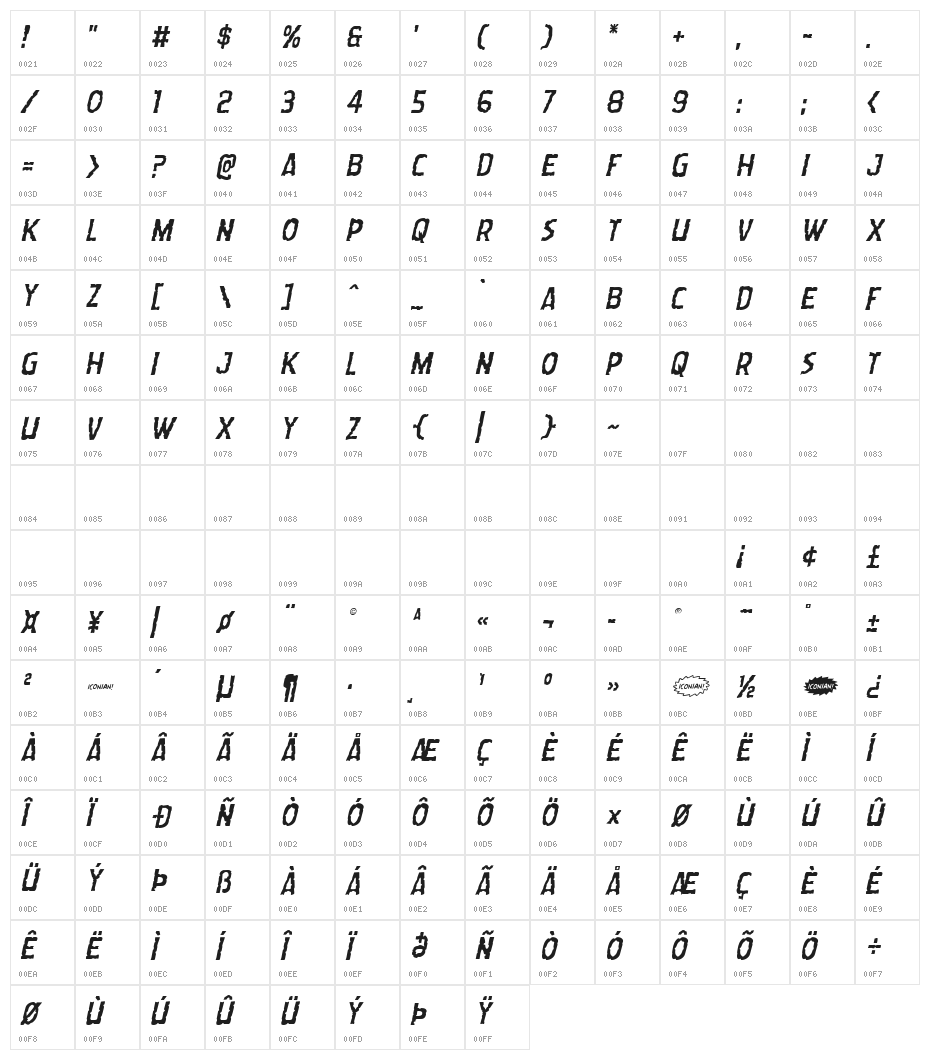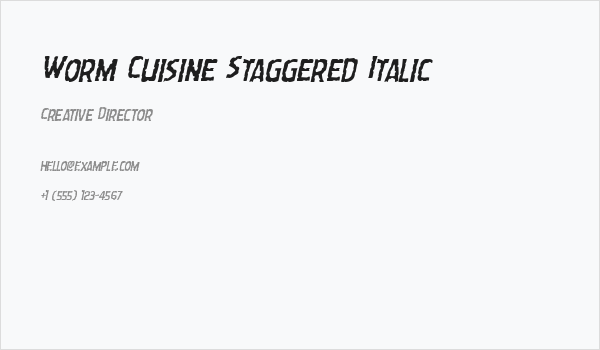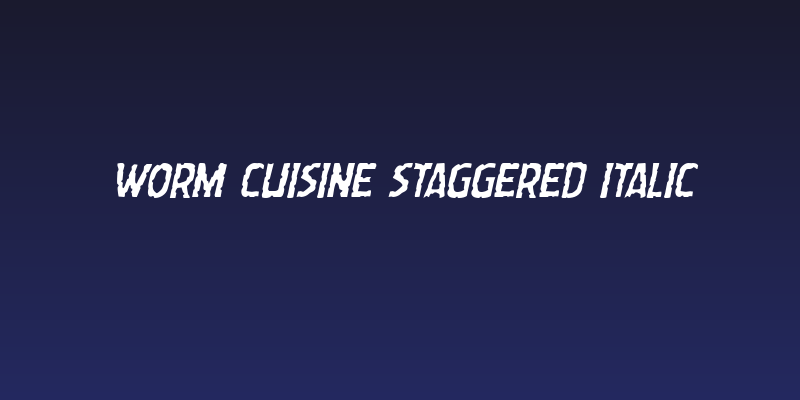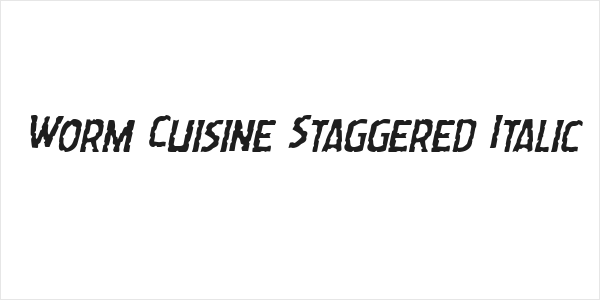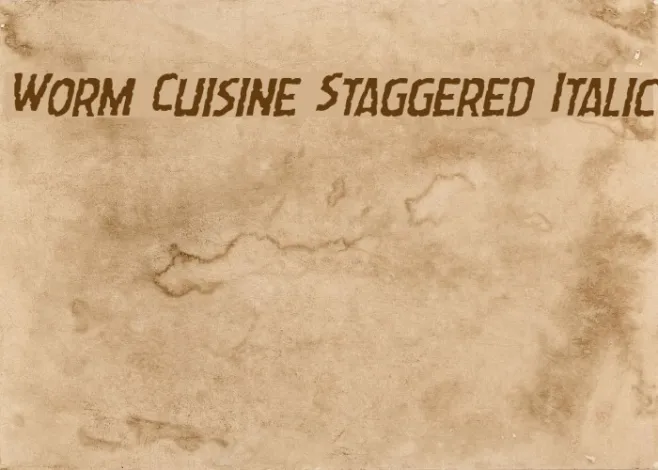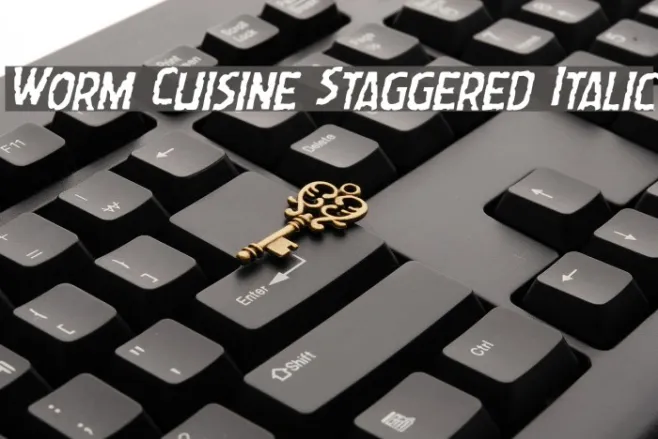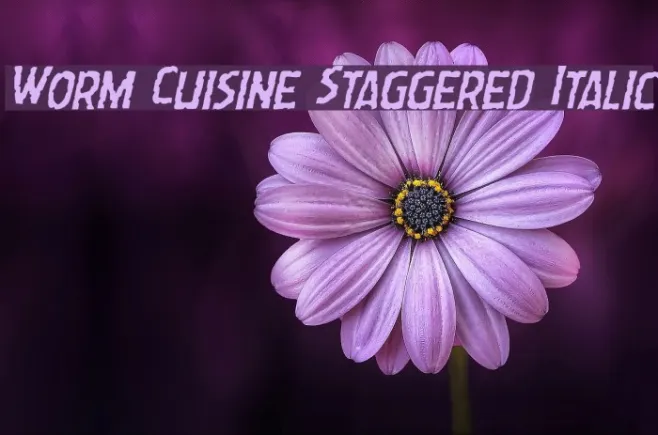
Worm Cuisine Staggered Italic Font
Worm Cuisine Staggered Italic Description
This font features a bold, staggered design with an italic slant, giving it a dynamic and energetic appearance. The characters are irregularly shaped, with jagged edges that create a sense of movement and urgency. The uppercase and lowercase letters maintain a consistent style, while the numbers and special characters follow the same bold and staggered theme. The overall look is edgy and modern, making it suitable for projects that require a strong visual impact.
| Overall Style | Modern, Edgy |
| Proposed Projects | Ideal for poster designs, music album covers, video game titles, and branding for edgy or modern products. |